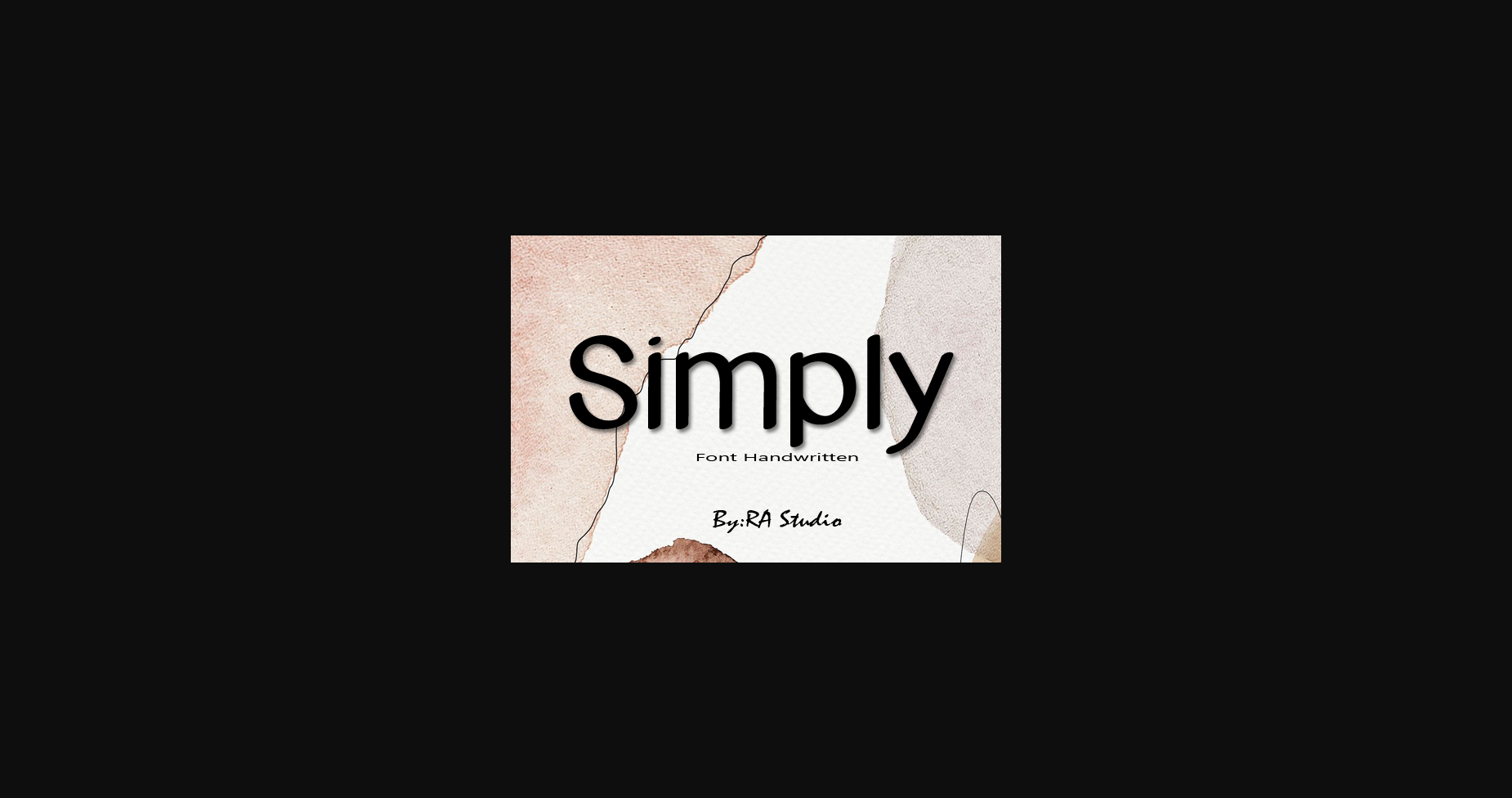
Simply Font
About Simply Font
Simply is a dainty and adaptable sans serif font.
Sweet and joyful, this font will be ideal for writing wedding invitations, cards or any other design that may need a romantic, personalized touch!